Welcome to Logo Fonts Part 2
Where we highlight a fresh collection of modern logo fonts 2026 perfect for creators and brands. This selection features smooth, futuristic, and minimal typefaces that elevate any design project—from UI to branding.
Riona stands out with soft rounded edges, ideal for calm and minimalist visuals. Sorena adds a retro-bubble charm for playful branding. Negan blends geometry with unique accents, giving logos a sharp identity. If you love high-tech style, Bitrate brings clean, digital strokes perfect for futuristic interfaces. Qurova offers elegant circular forms, while Tecwo delivers bold and wide characters for strong, modern titles.
These fonts bring personality, clarity, and visual impact—just what every modern designer needs.
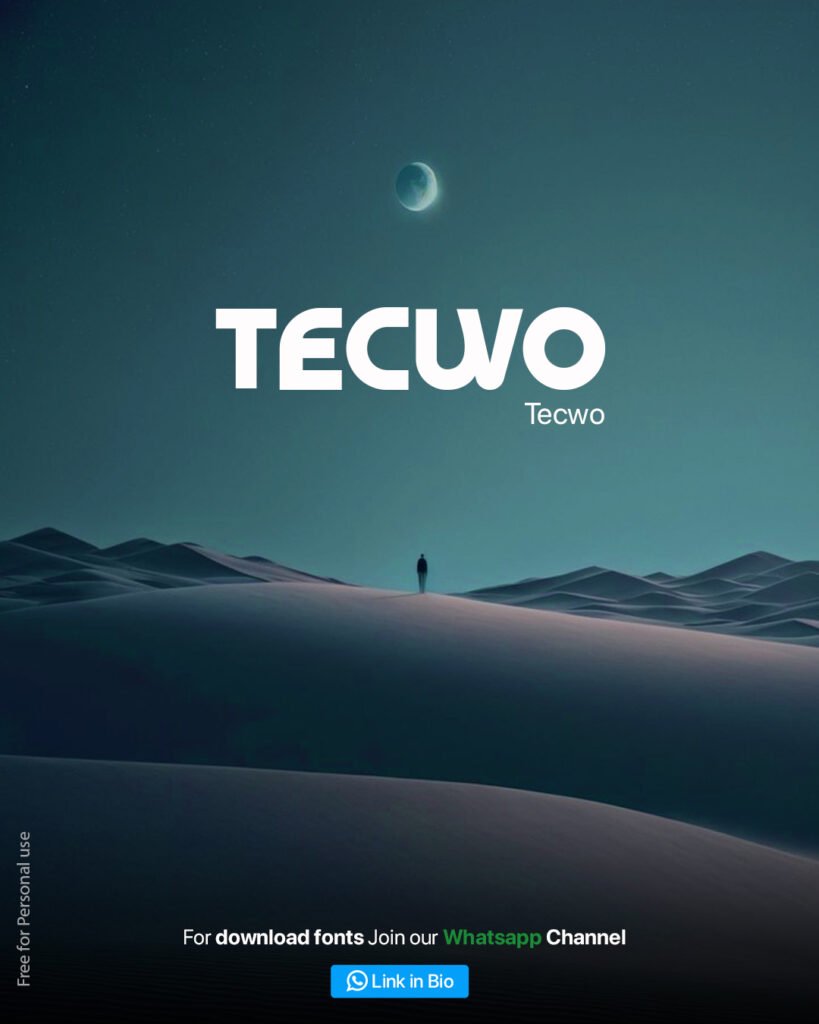
Tecwo
Tecwo carries a bold, wide letterform with futuristic confidence.
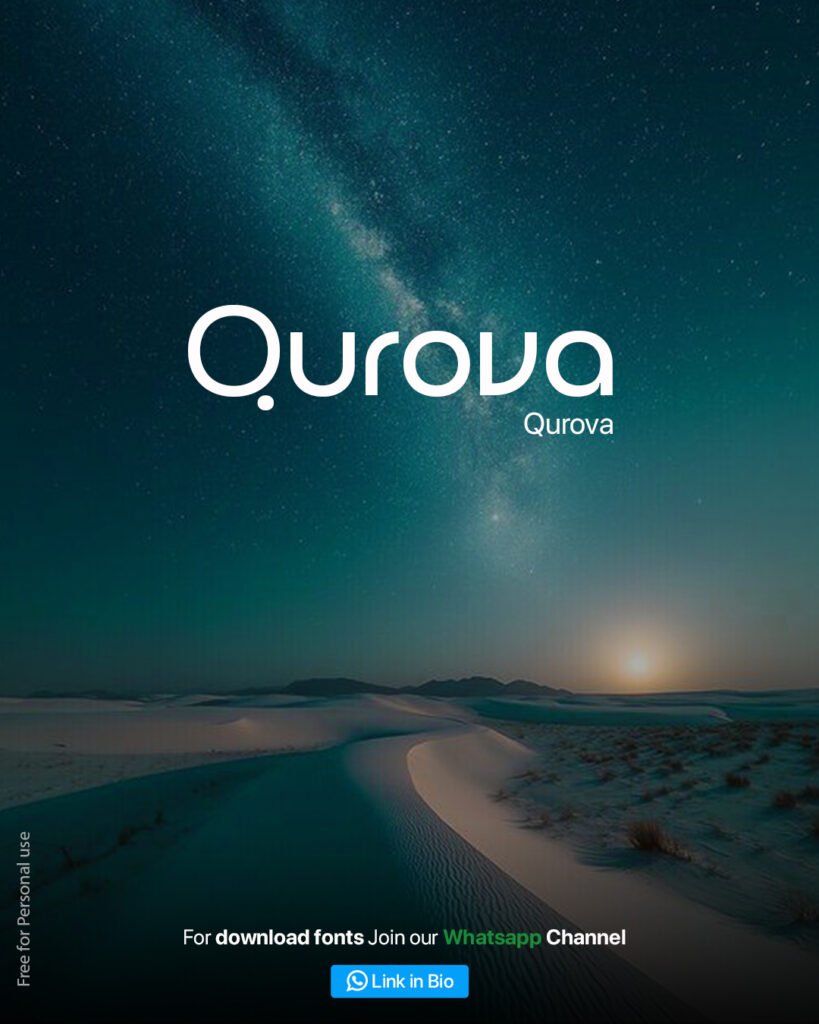
Qurova
Qurova: blends smooth circular shapes with modern elegance.
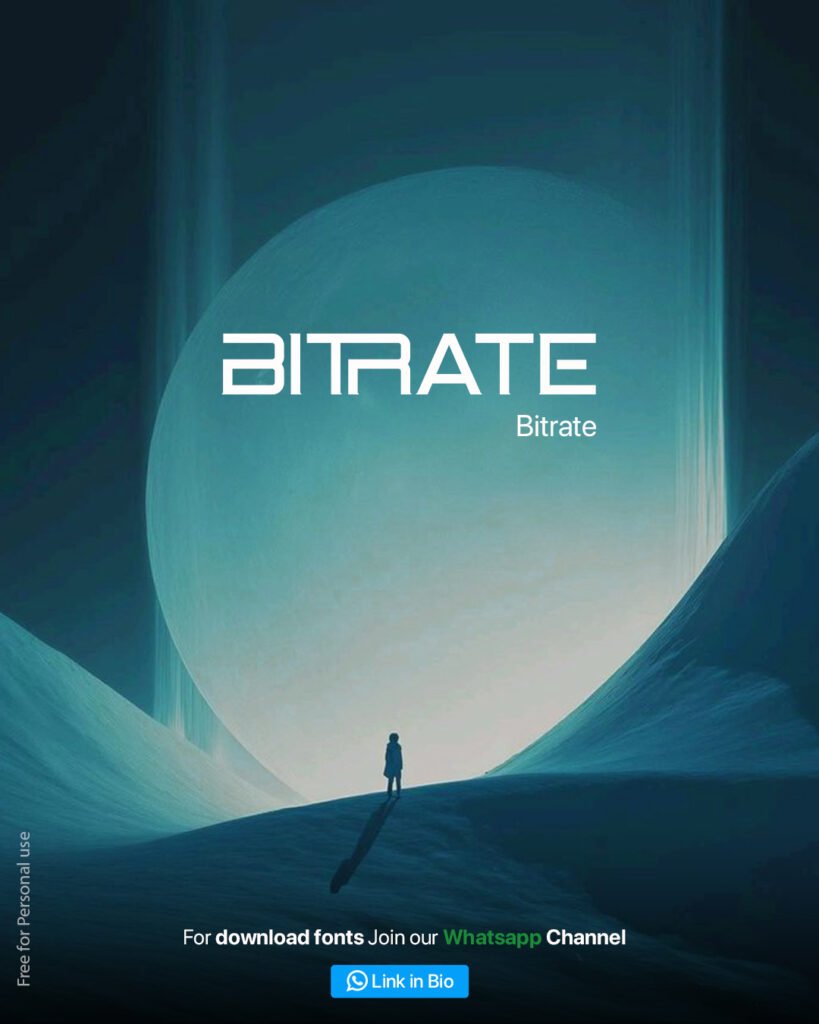
Bitrate
Delivers sharp, angular cuts that feel digital and high-tech.
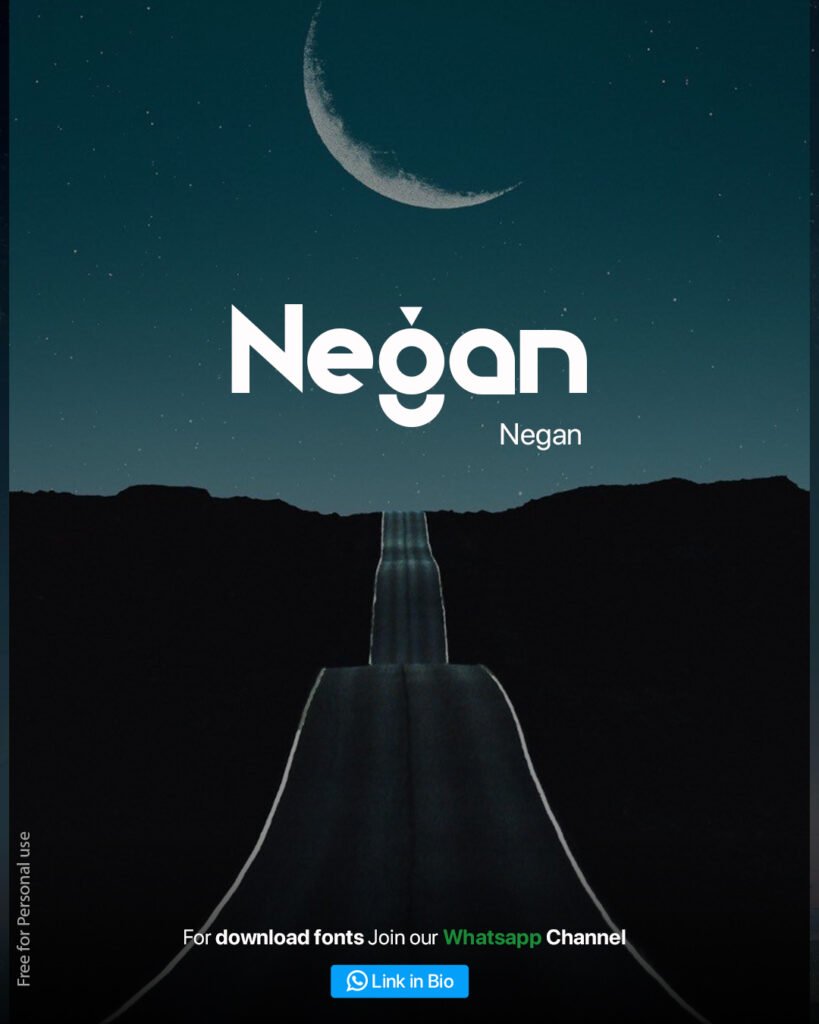
Negan
Negan: mixes geometric structure with a unique accent for a standout identity
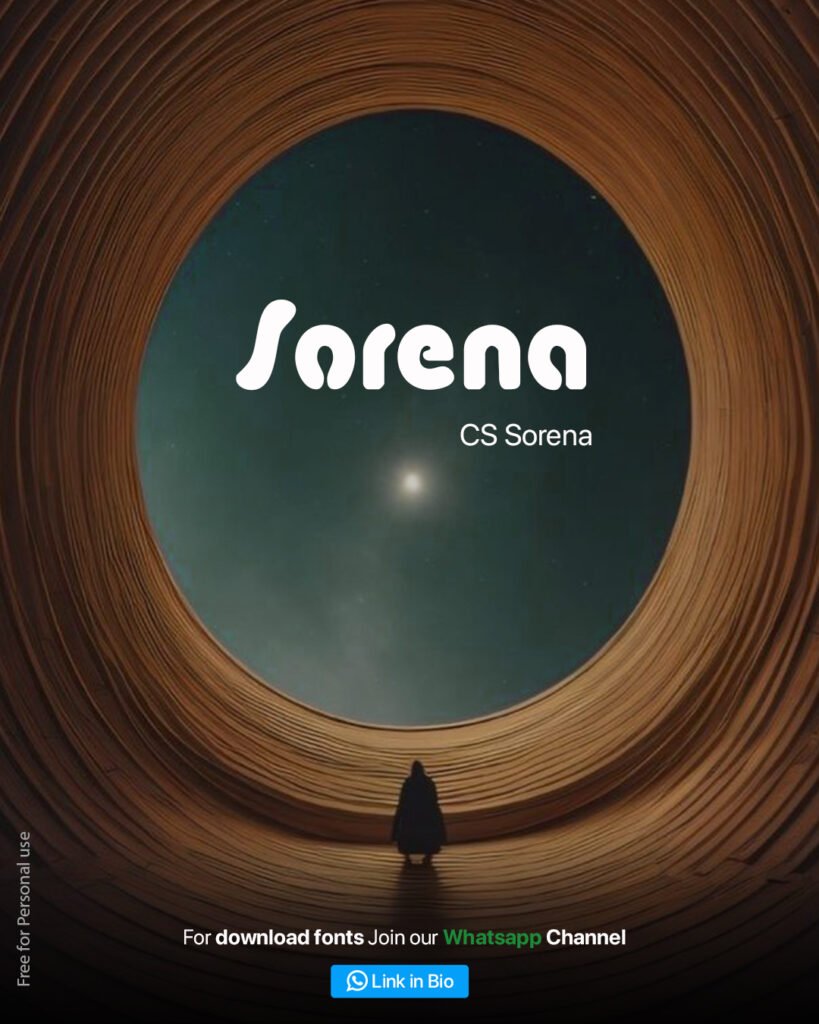
Sorena
Sorena features bold, organic curves inspired by retro bubble typography.
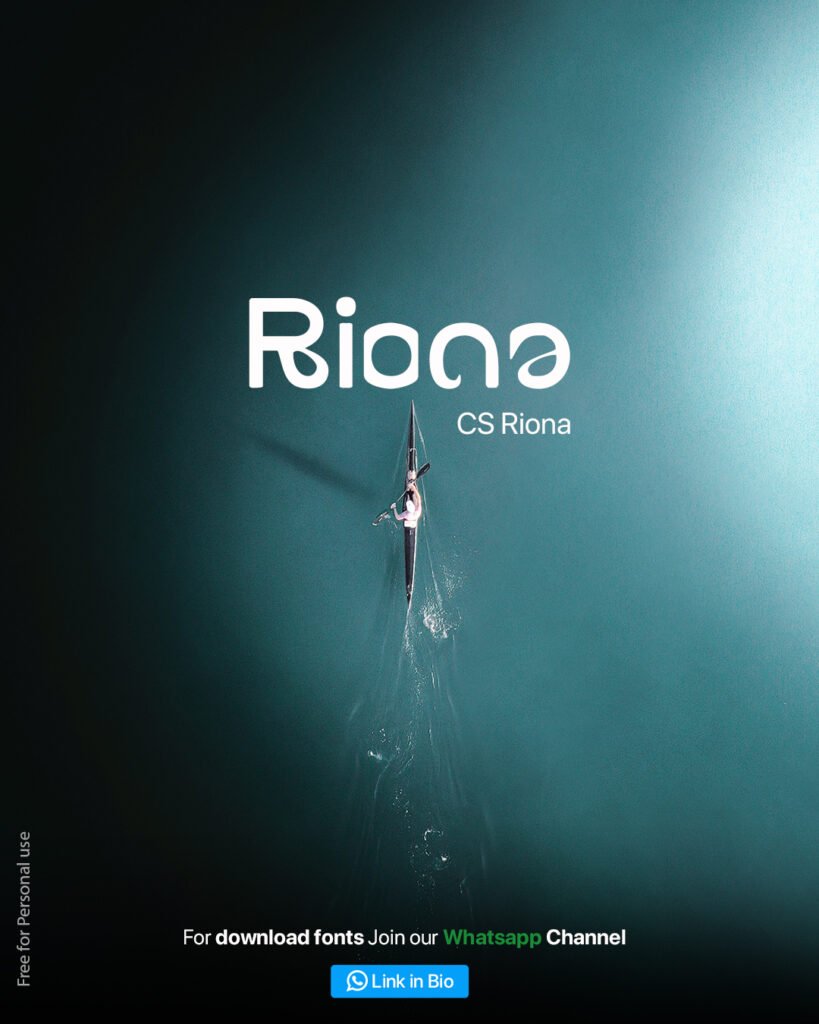
Riona
Riona brings a smooth, rounded aesthetic that feels modern and calming.